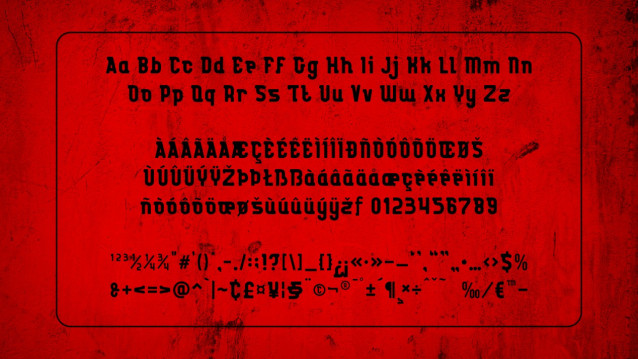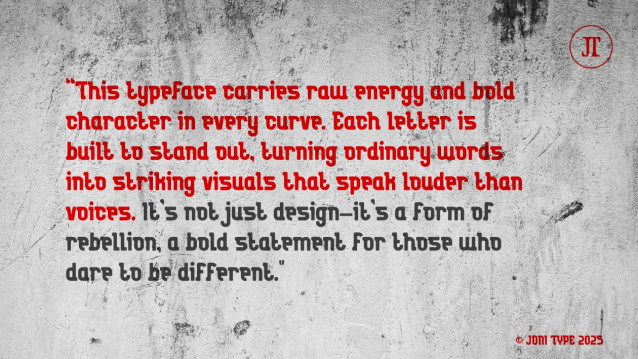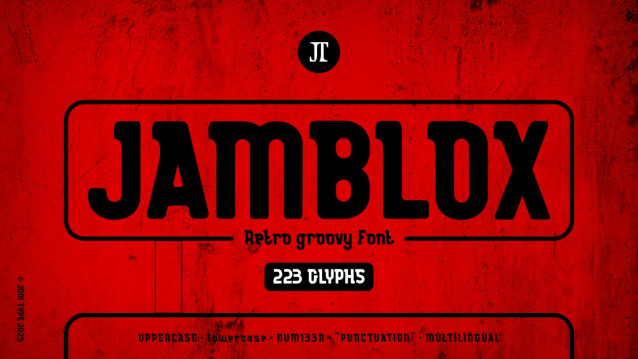
Jamblox Font
Jamblox Font is a bold, rugged, and industrial-style typeface that combines strength with a touch of rebellion. Its sharp edges and blocky shapes make it perfect for projects that demand attention — from posters, album covers, and streetwear branding to gaming and movie titles.
With its unique stencil-inspired design, Jamblox delivers a raw, gritty vibe that fits urban, grunge, and underground themes. It comes with multilingual support, numbers, and symbols, making it versatile and ready for both modern and edgy creative projects.